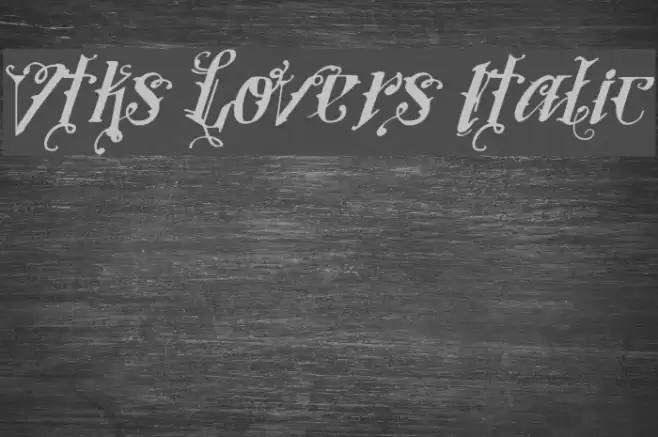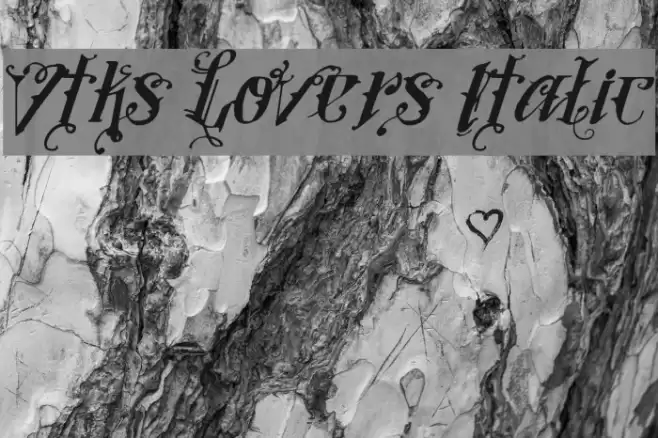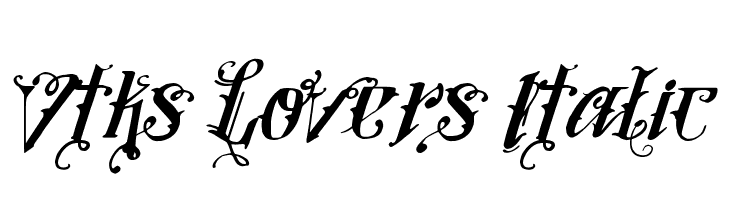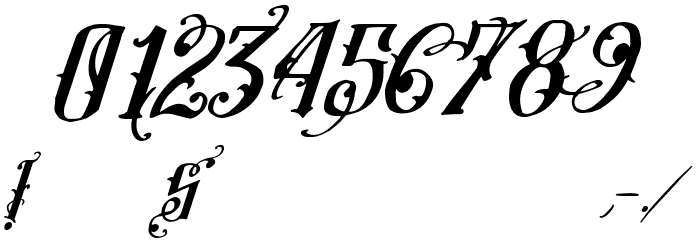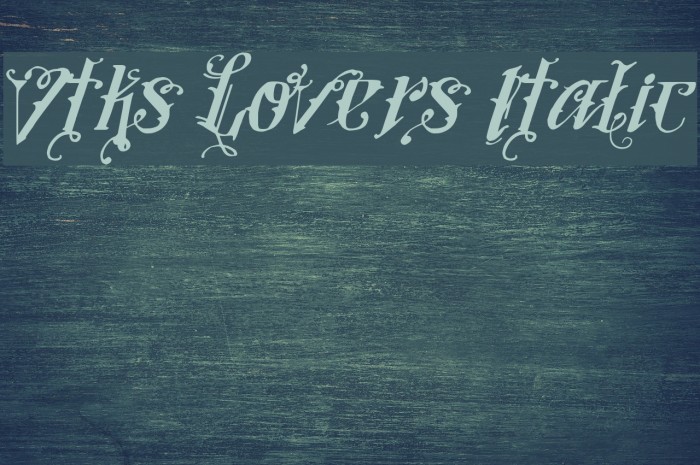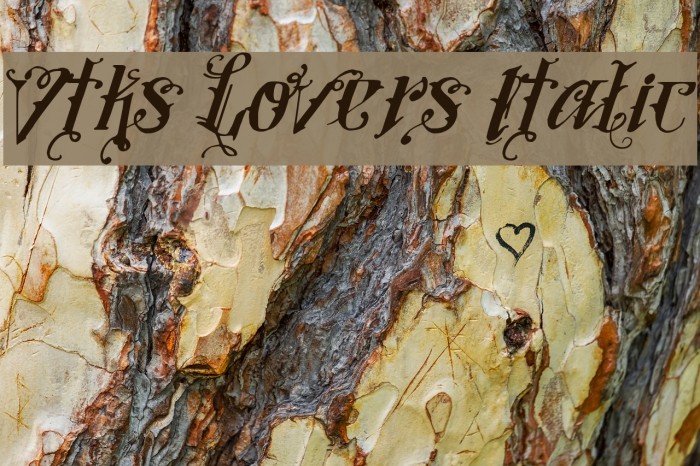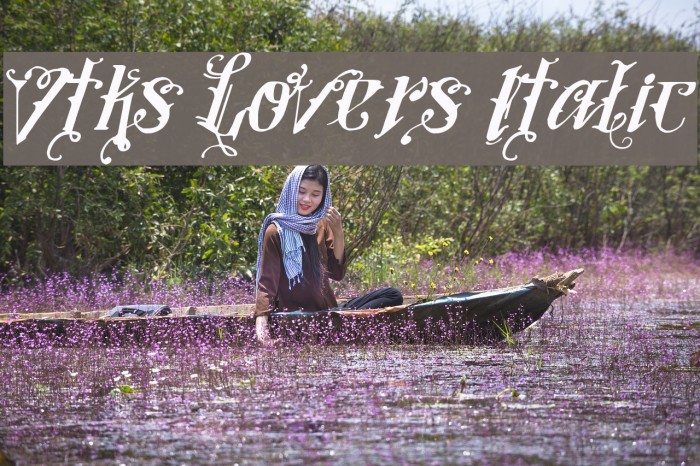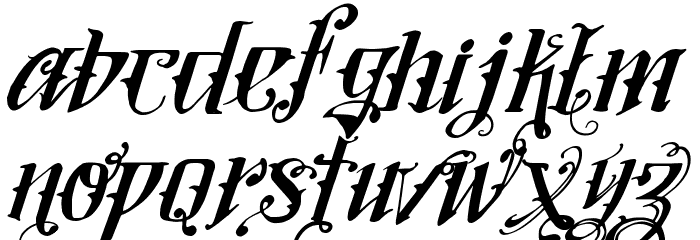
Vtks Lovers Italic Font
Vtks Lovers Italic Description
This font features an elaborate and decorative style, characterized by its intricate swirls and flourishes extending from the characters. The uppercase letters are particularly ornate, with exaggerated curves and loops that give a sense of elegance and flair. The lowercase letters maintain a consistent style, though slightly less embellished, ensuring readability while retaining the decorative theme. The numbers and special characters follow suit, with unique embellishments that make them stand out. This font is italicized, adding a dynamic and flowing appearance to the text. The overall design is reminiscent of calligraphic or script styles, making it suitable for artistic and expressive projects.
An ornate, italicized decorative font with elaborate swirls and flourishes from Uncategorized fonts.
- Proposed Projects: Ideal for wedding invitations, greeting cards, logo design, and artistic posters.
- Use Case: Logos, Headlines, Artistic projects